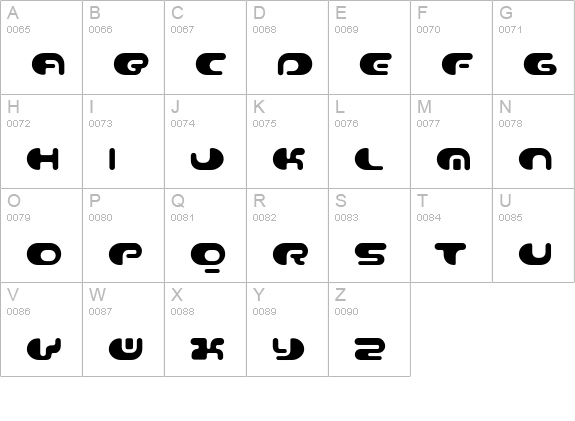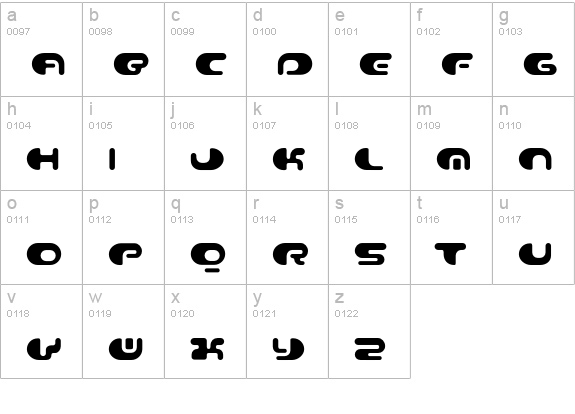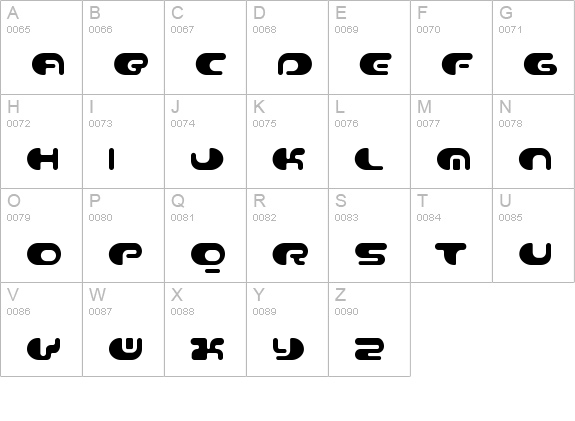
Contour-Regular Font Details
Contour-Regular is the standard, neutral variant in the Contour typeface family \xE2\x80\x94 well suited to general body text, paragraphs, and standard typographic work.
Contour-Regular is a modern and sleek typeface that effortlessly combines elegance with a touch of sophistication. Its clean lines and unique contours make it perfect for a wide range of design projects, from branding to editorial. The font exudes a sense of style and professionalism that is sure to elevate any visual composition. What makes Contour-Regular even more appealing is that it is completely free to download. You can easily access this versatile font at FontsMarket.com, where you can unleash your creativity and bring your design ideas to life. Don't miss out on the opportunity to enhance your projects with the timeless beauty of Contour-Regular. Download it today and start creating stunning visuals that stand out from the rest.